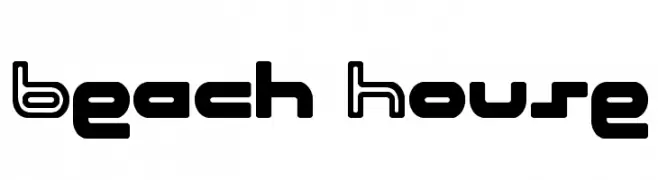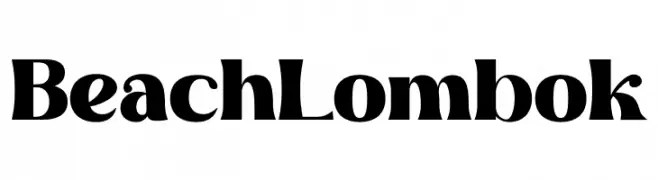
( Fonts by Supersemar Letter )
A playful, hand-drawn font with tall, narrow letters and a whimsical charm.
( Graphix Line Studio )
A playful, handwritten font with smooth, rounded strokes and a casual style.
A cursive, elegant font with flowing curves and a sophisticated style.
( Fonts by Dieter Schumacher )
A bold, geometric font with a modern and playful style.
A bold, high-contrast font with a dynamic and decorative style.
A bold, italic font with strong curves and a modern, dynamic style.